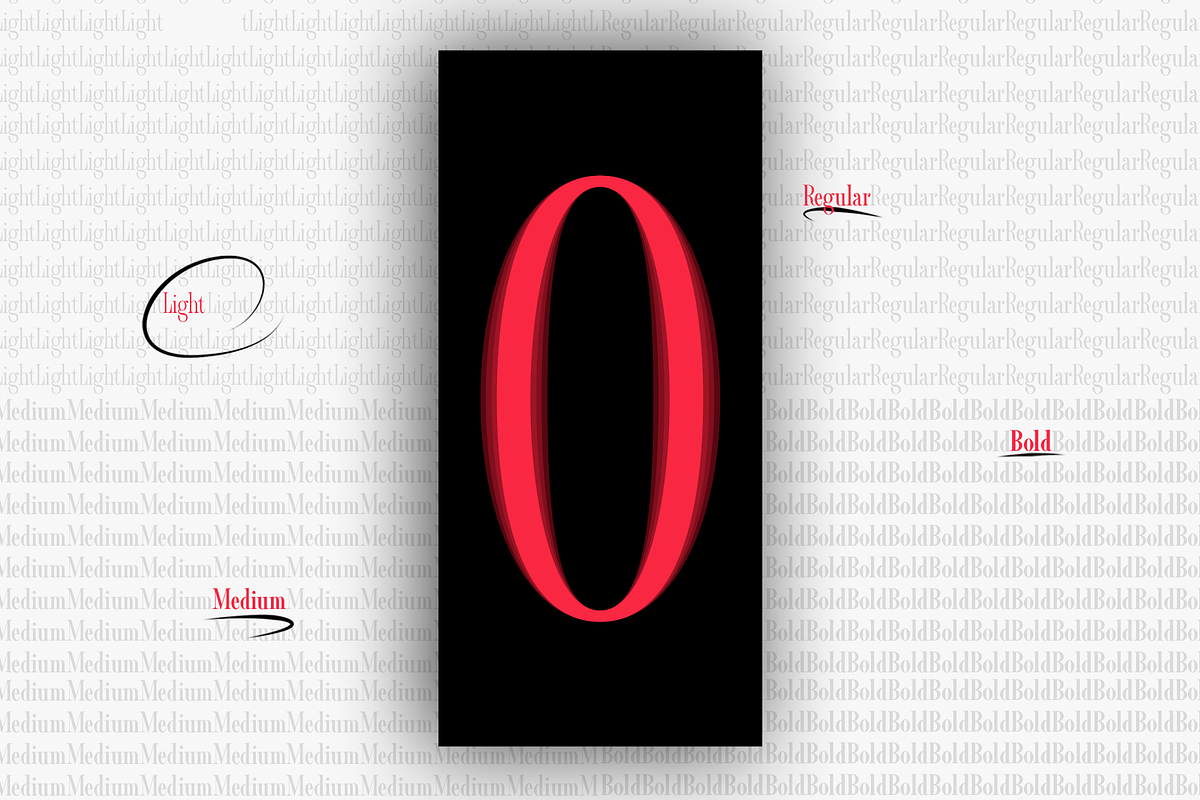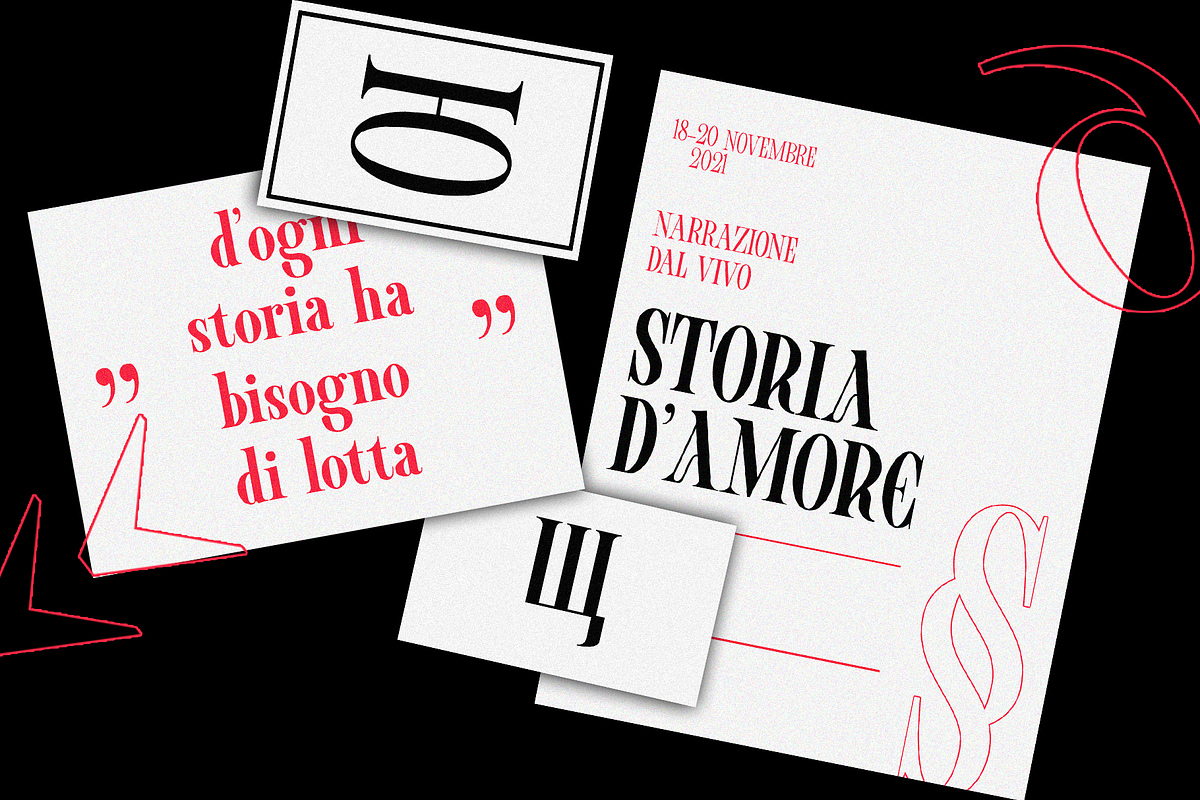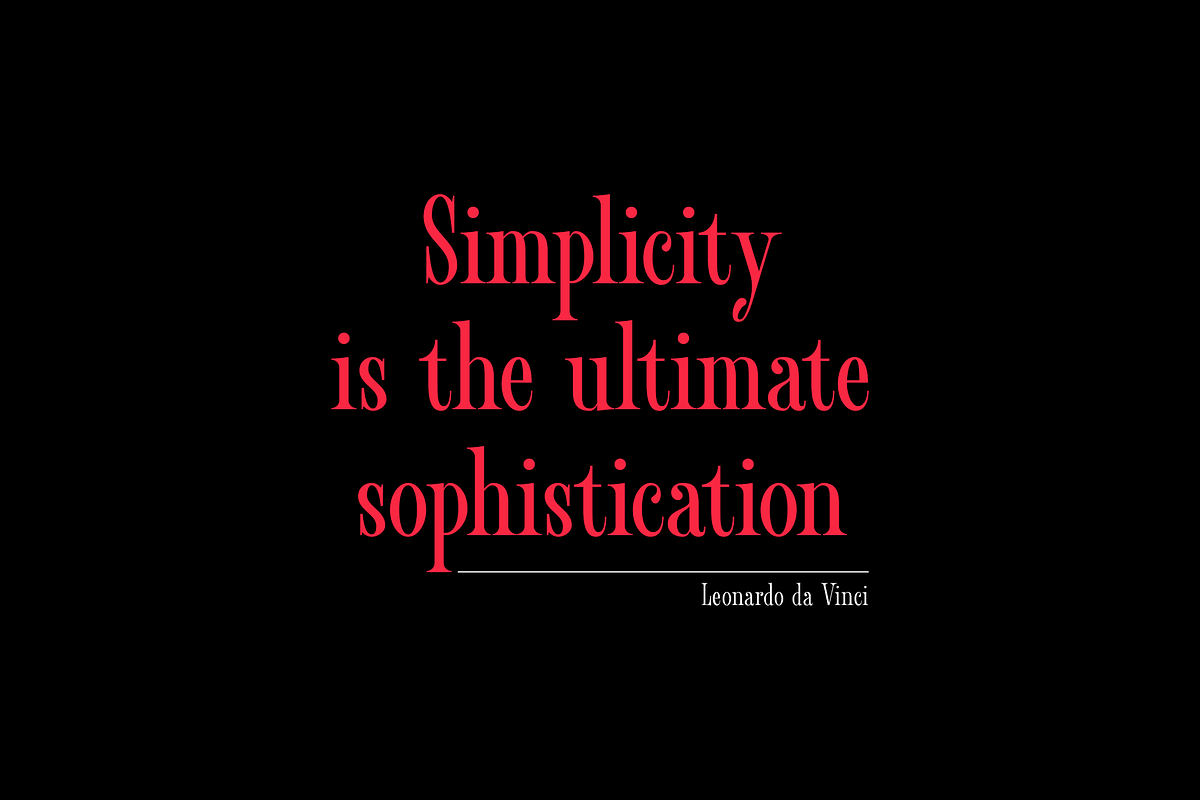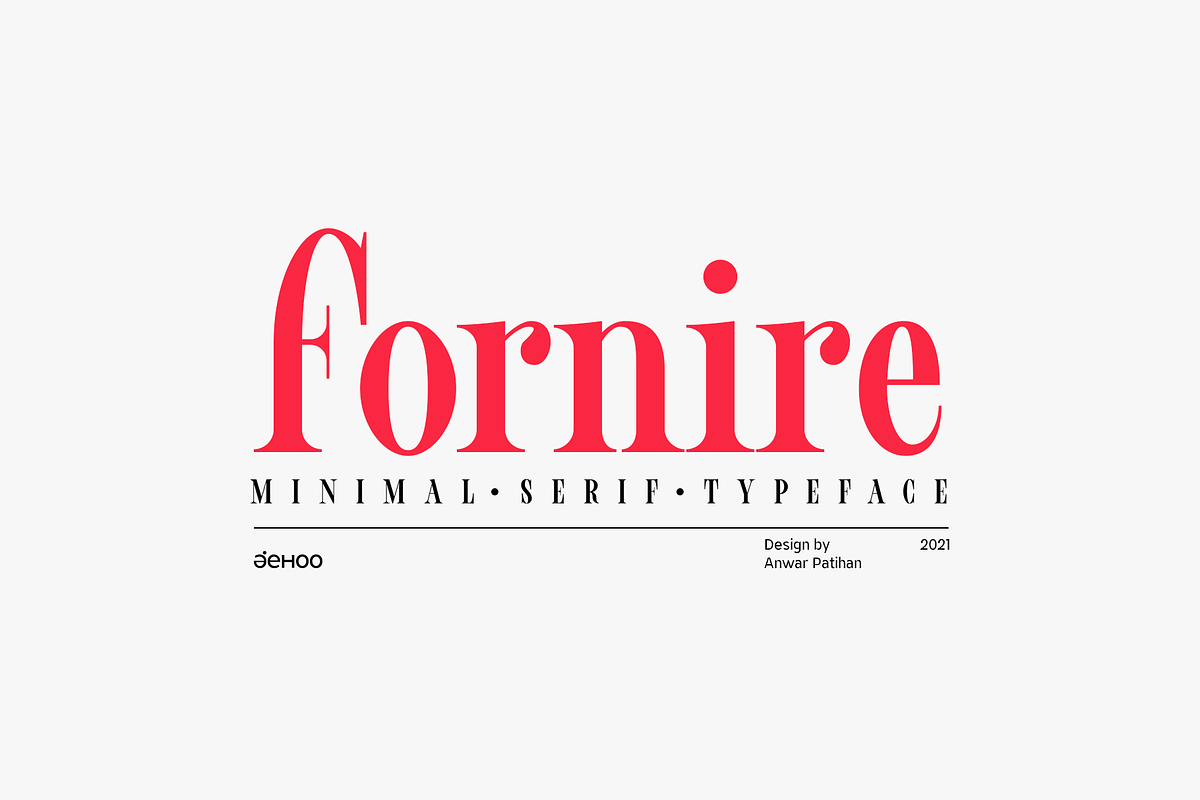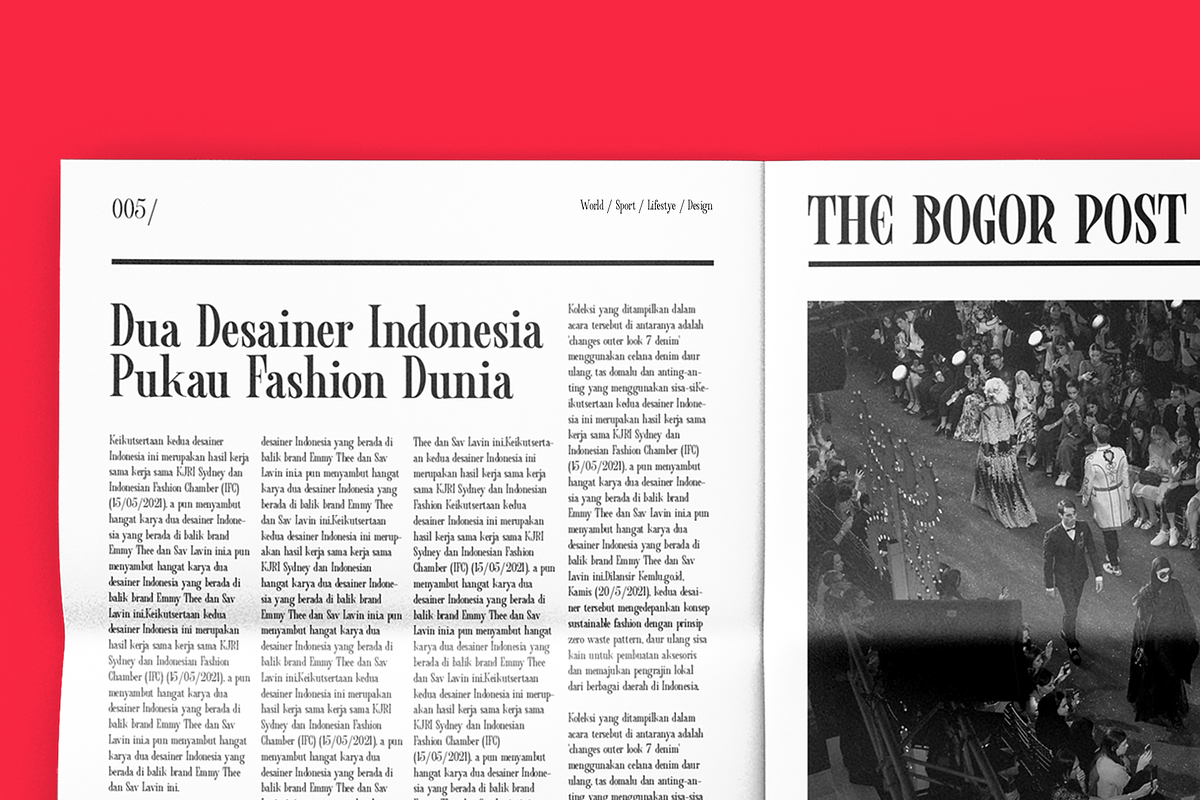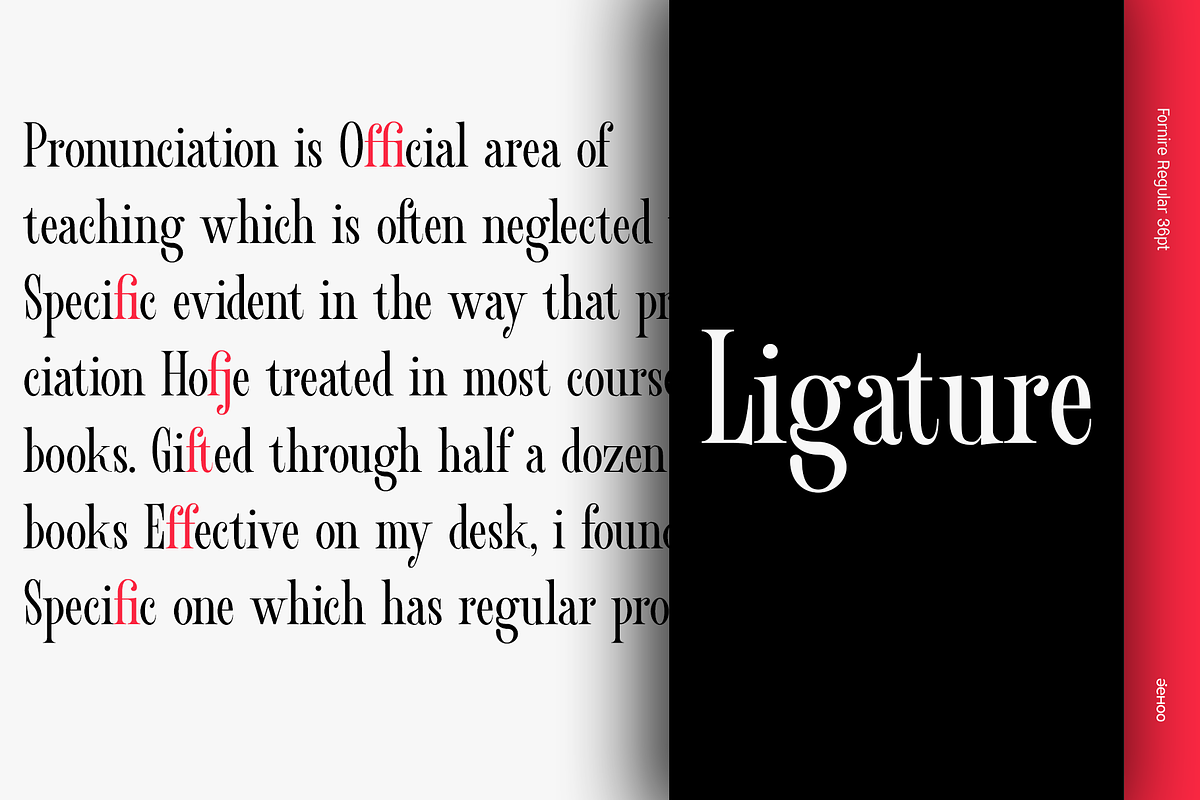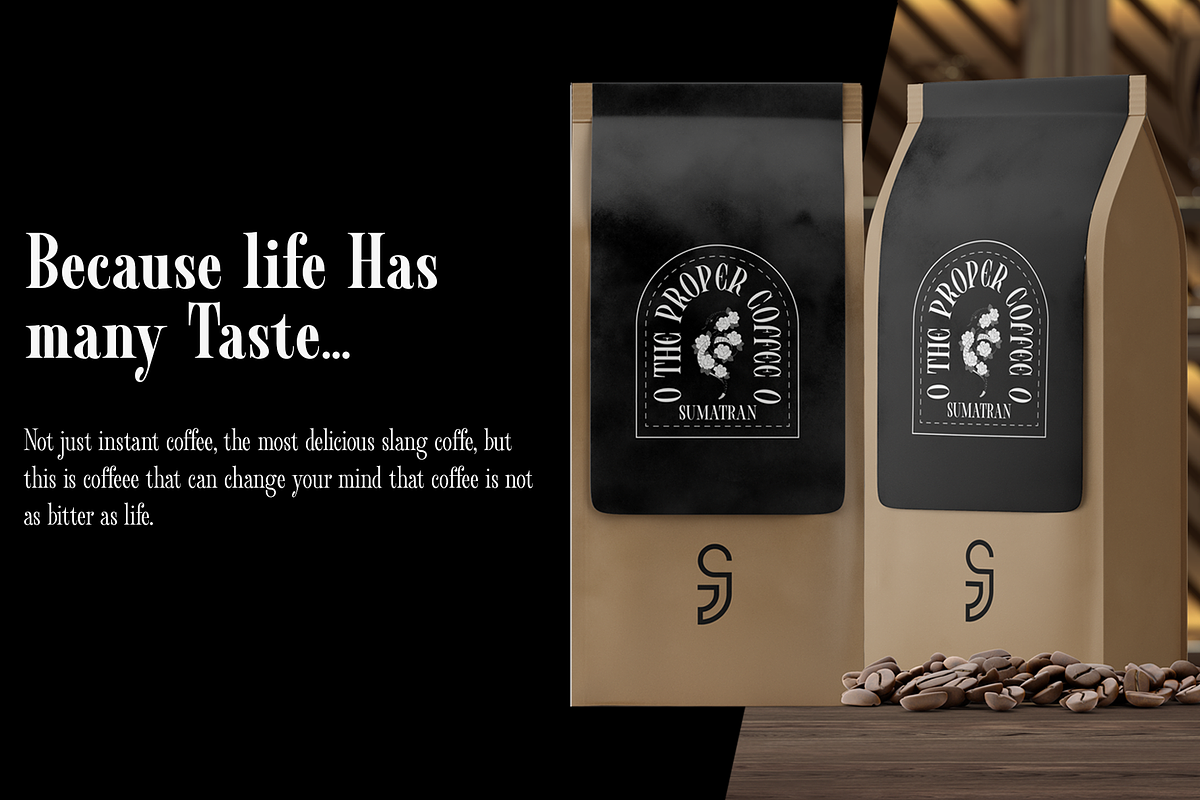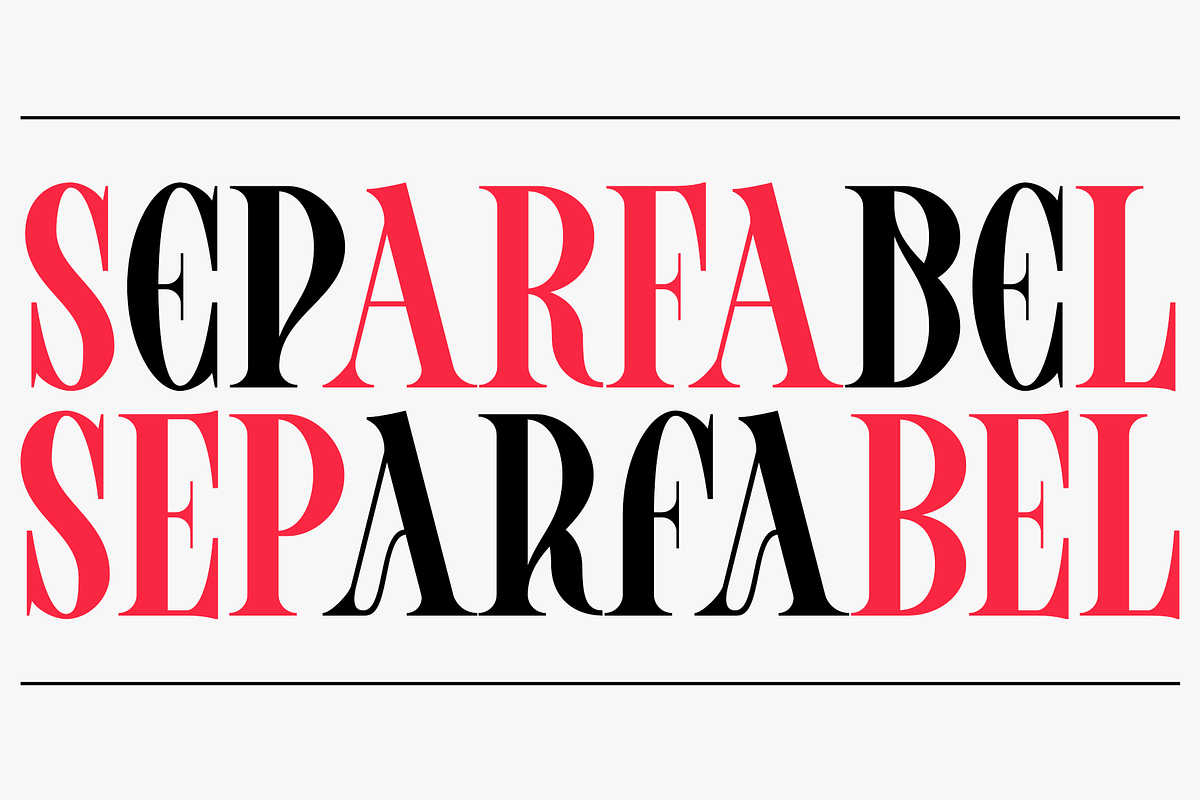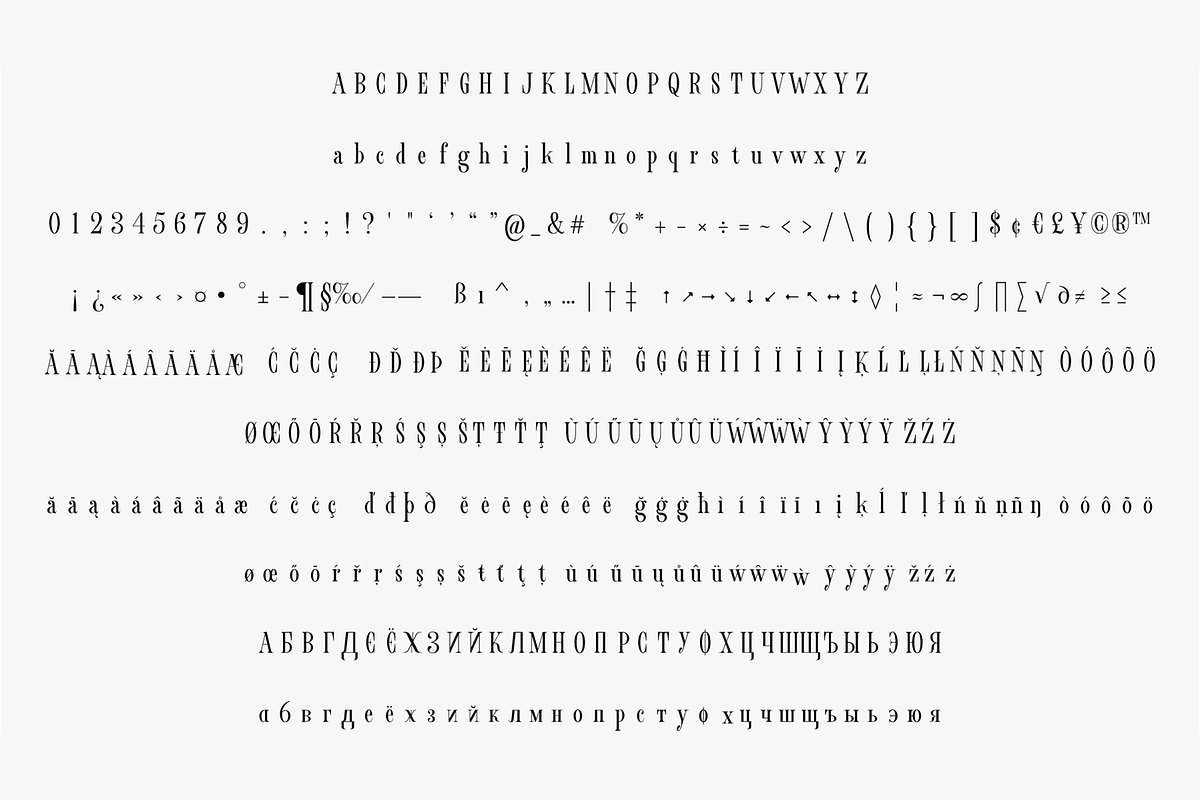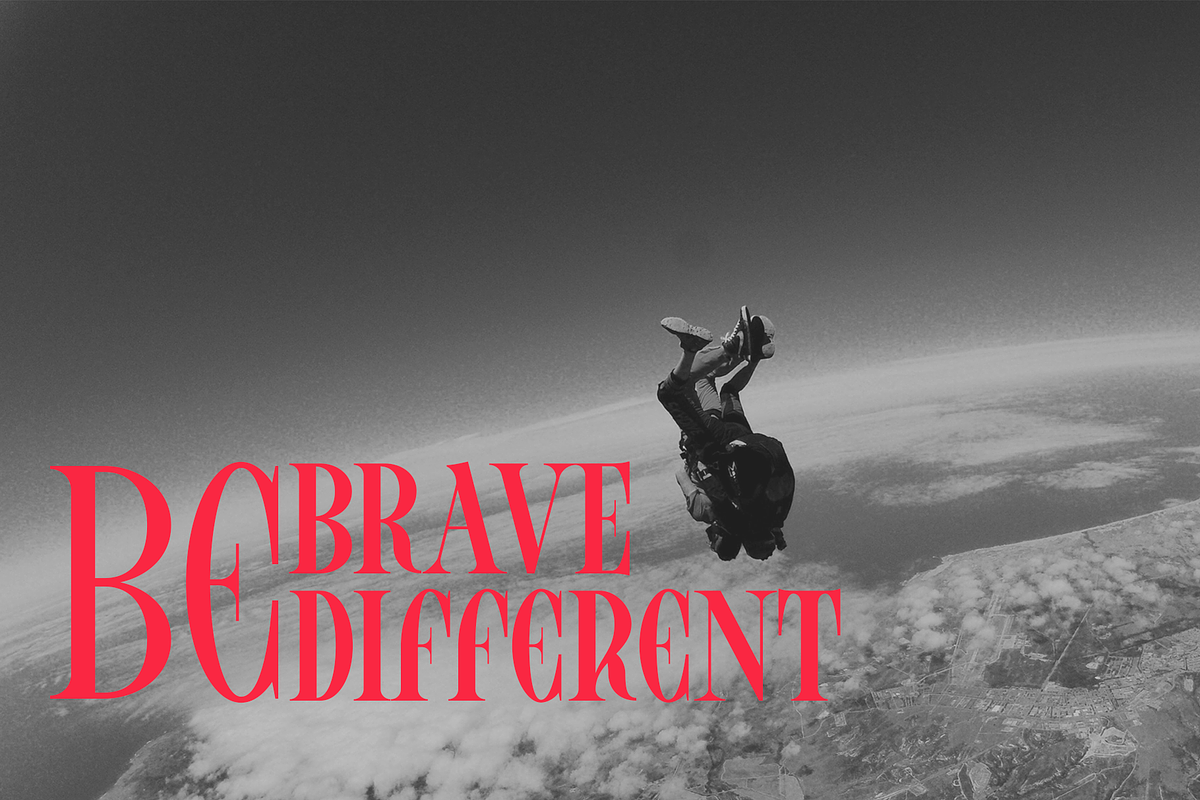
Fornire - Elegant Serif Family
Fornire family of typefaces grew out of a desire to provide a font that has a bold yet simple impression. For this reason, Anwar Patihan drew designs with a high foundation as letters based on humanist shapes and proportions. The letters are kept narrow to enhance the look, and the spacing between characters is narrowed for boldness. While the opentype Fornire feature has an alternate "A B E F P R" letter that looks very striking and easy to recognize, making the Fornire family very suitable for use on Posters, Cover designs, magazines, Banners, packaging designs, design considerations that he put into the Fornire family as well allowing it to perform well in a variety of other design environments.
Fornier has a variety of weights ranging from Light, Regular, Medium, Bold